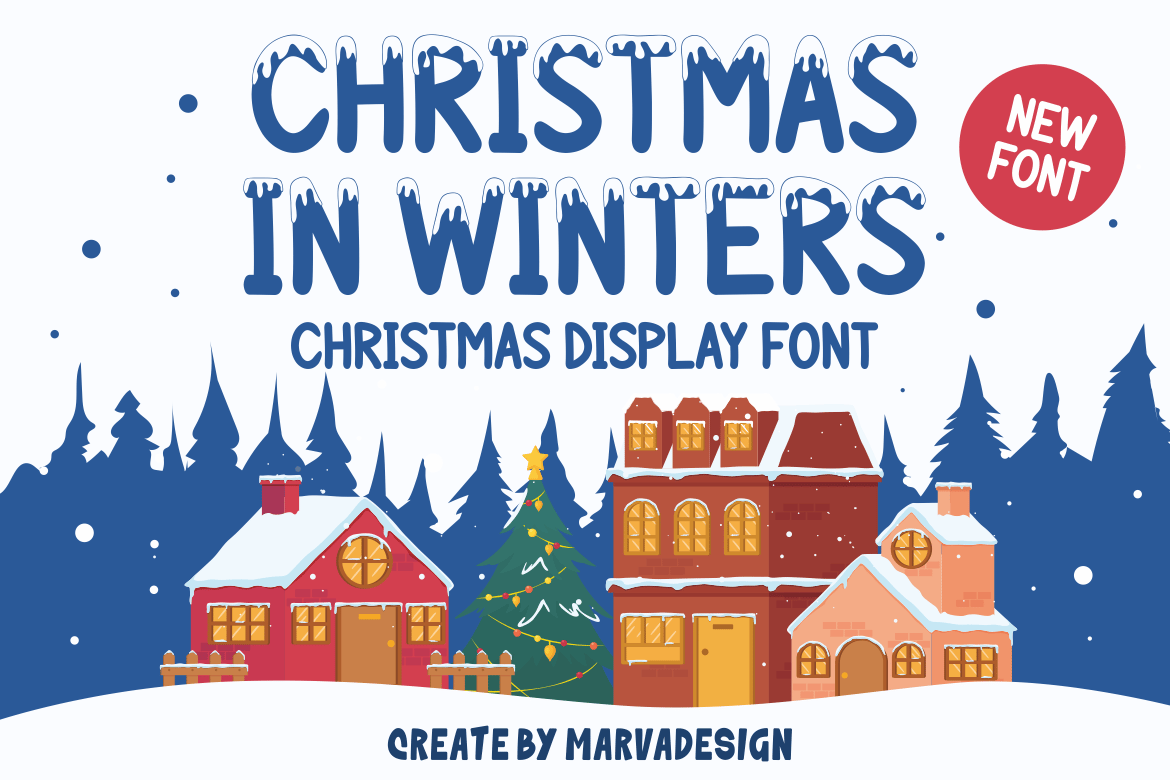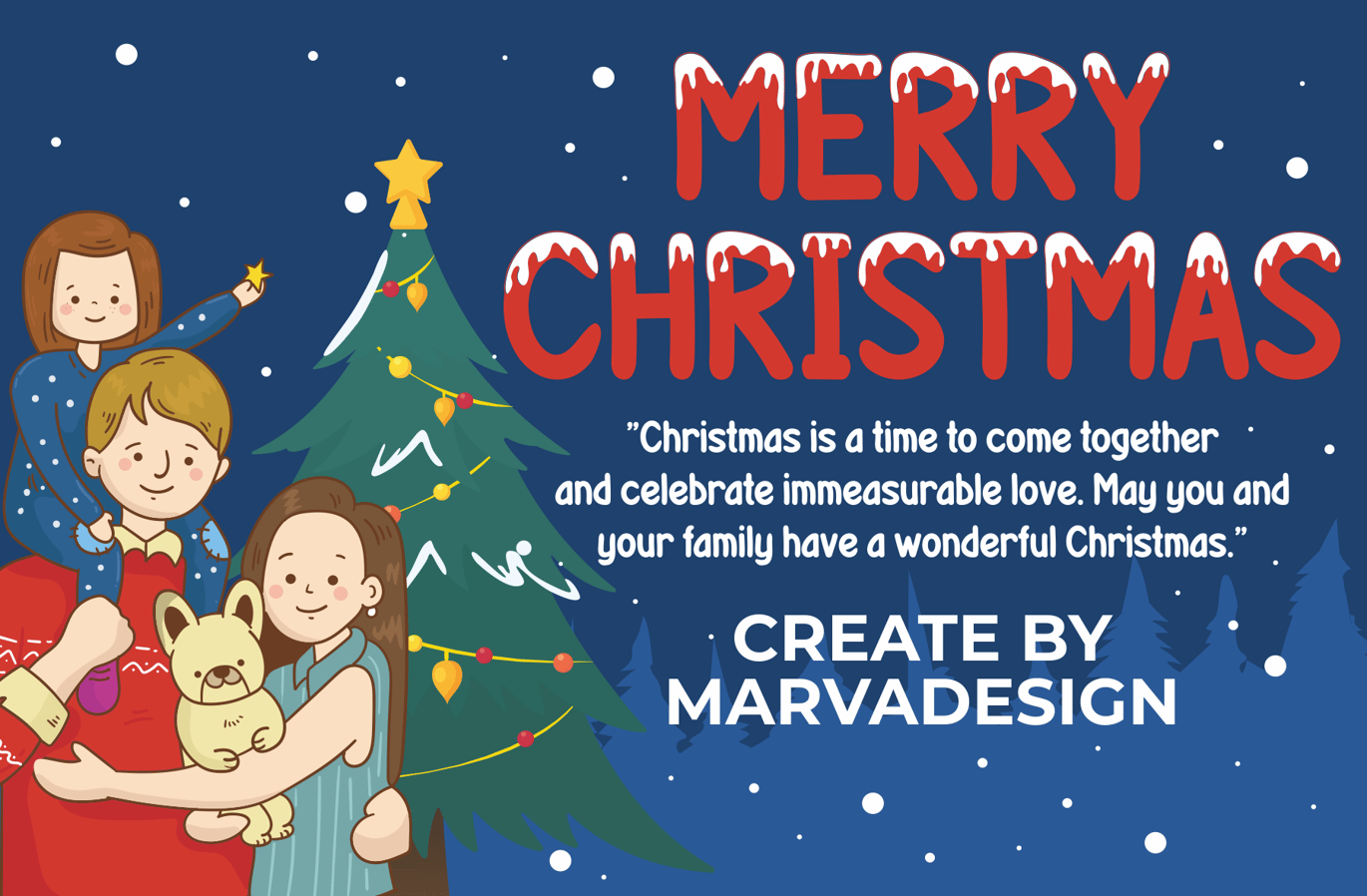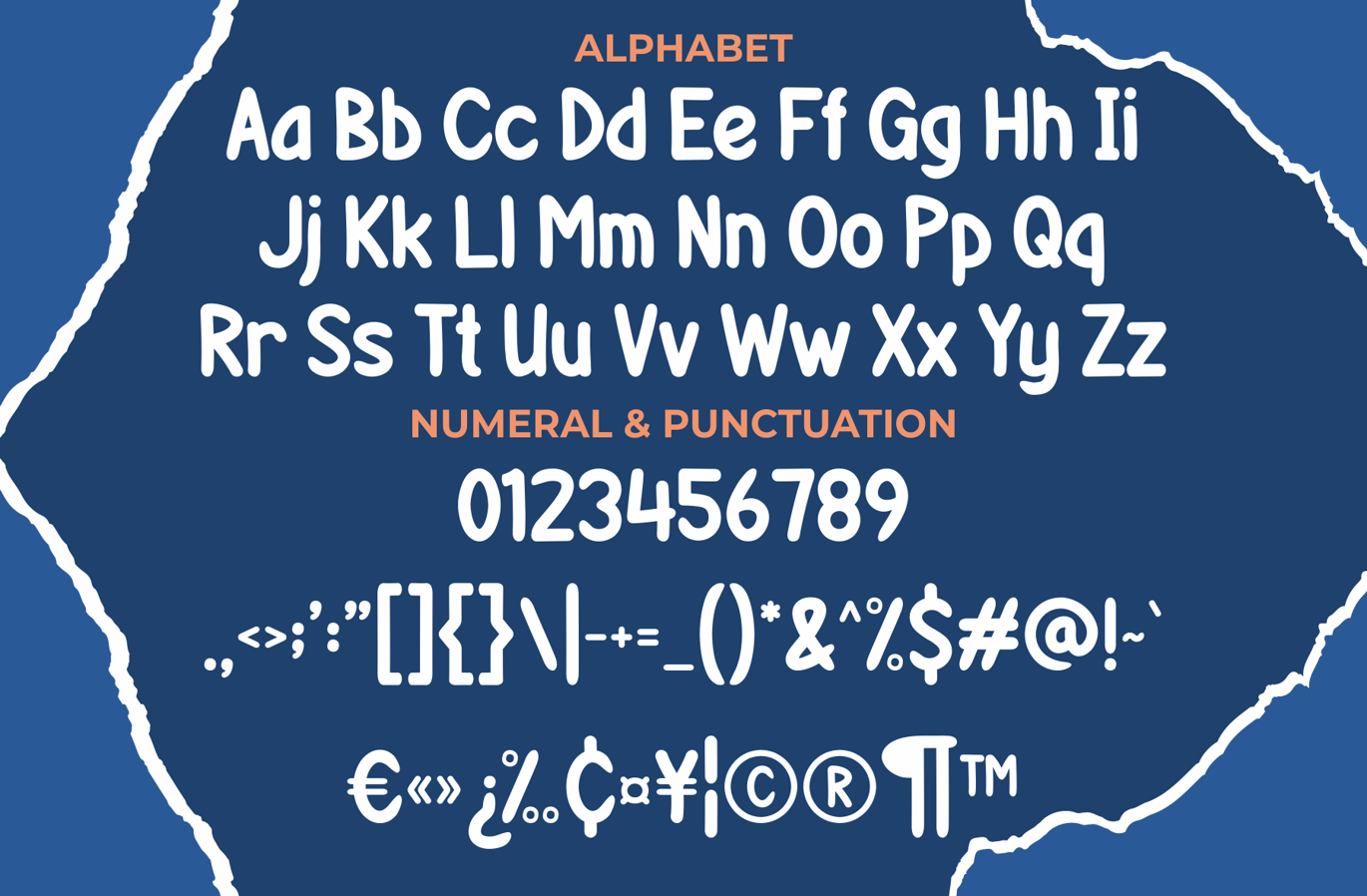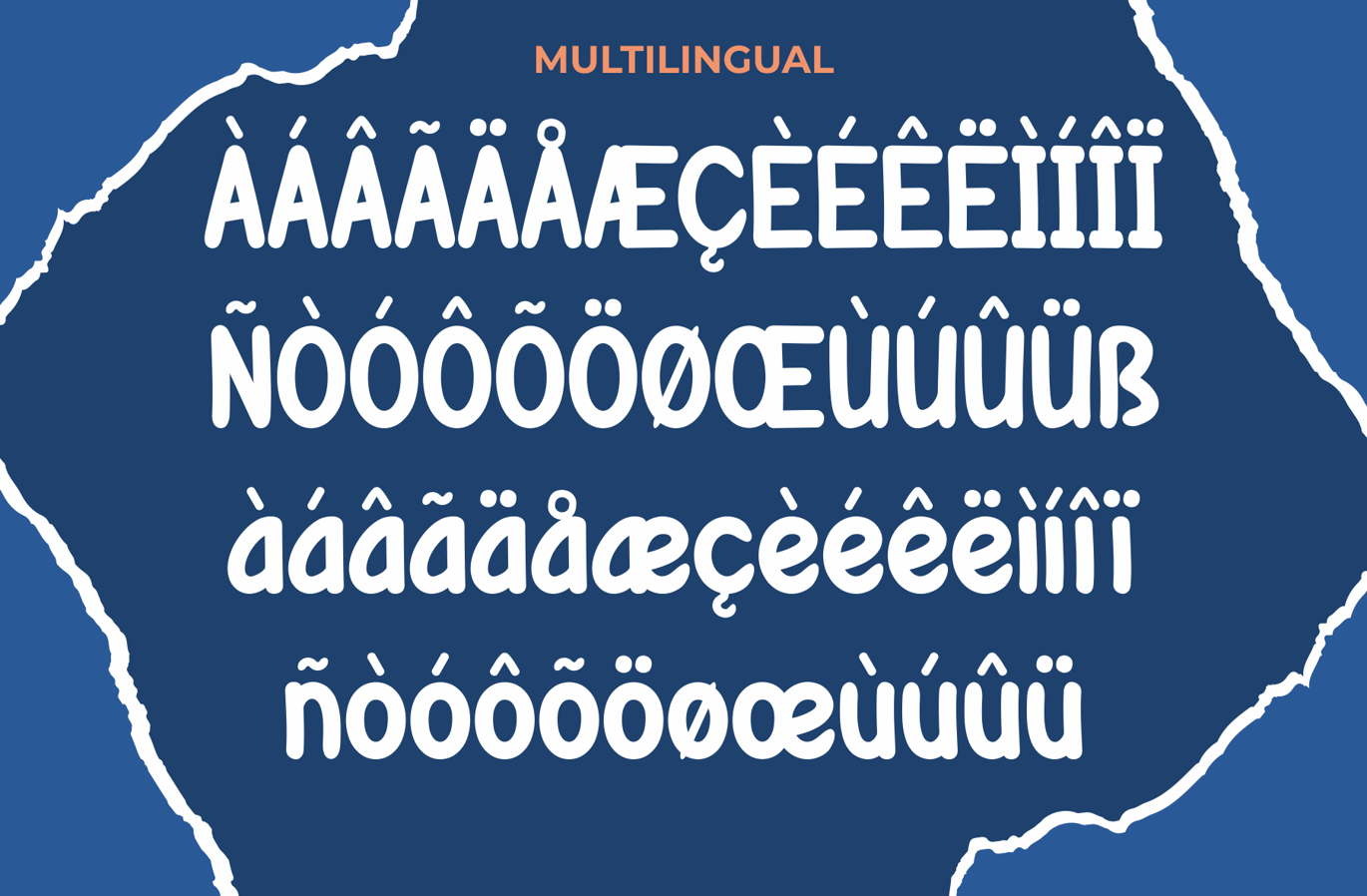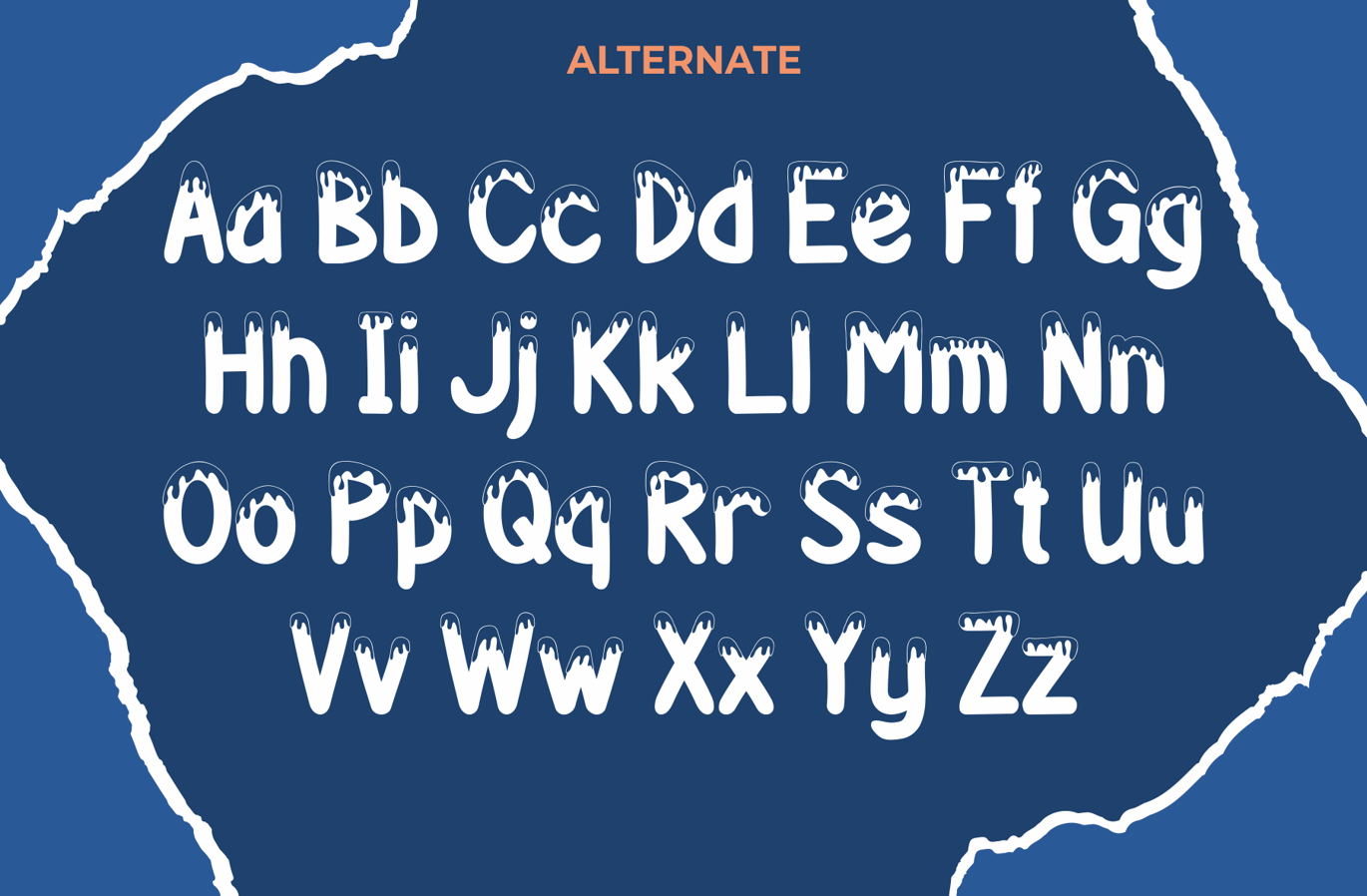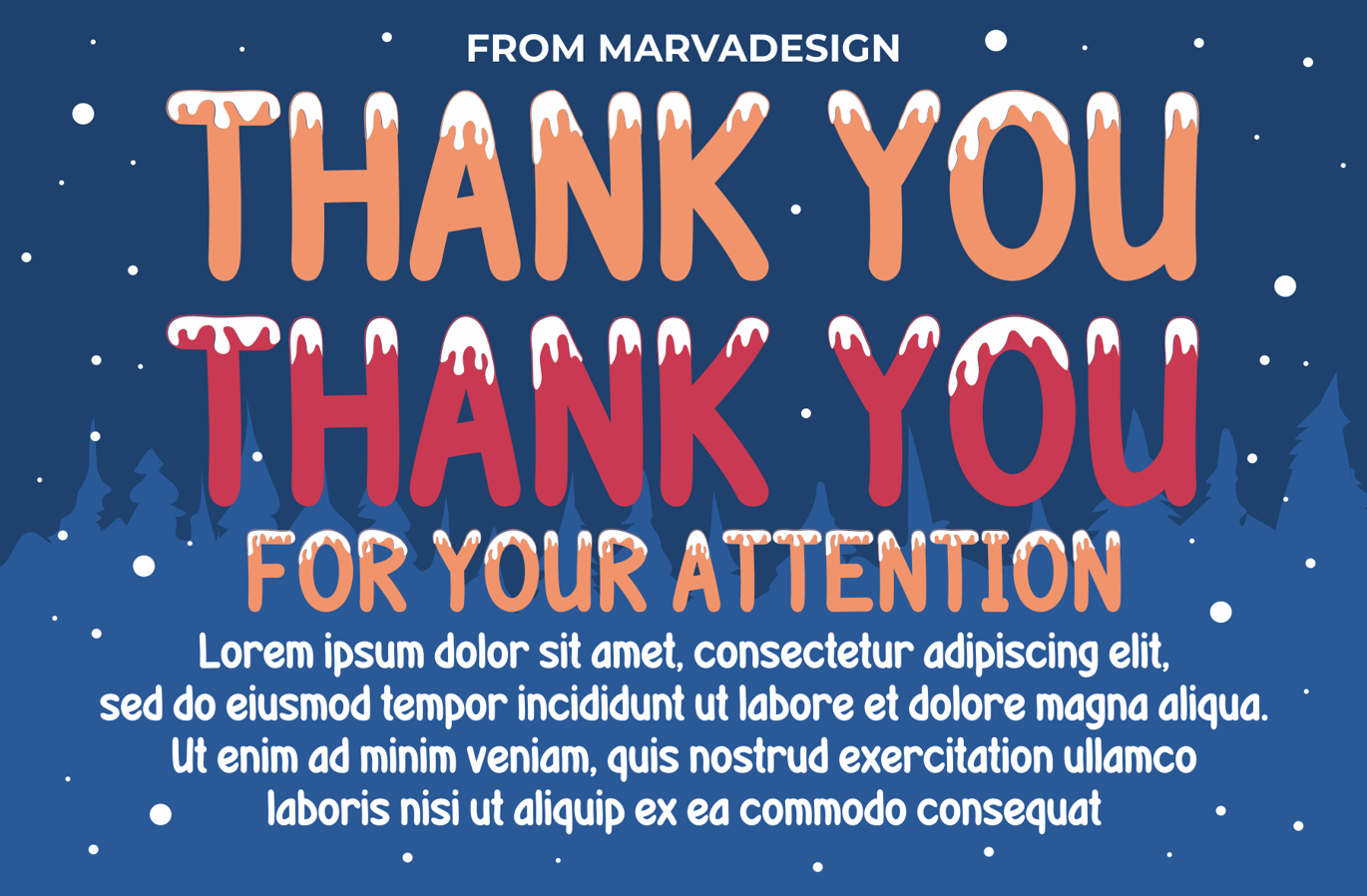
Christmas In Winter – A Modern Christmas Font
Christmas In Winter  Font – A Modern Christmas Font is a bold and authentic display font. The font is suitable for any branding project like logo, Template Design, Product and many more. outstanding in a wide range of contexts.
- Alternative